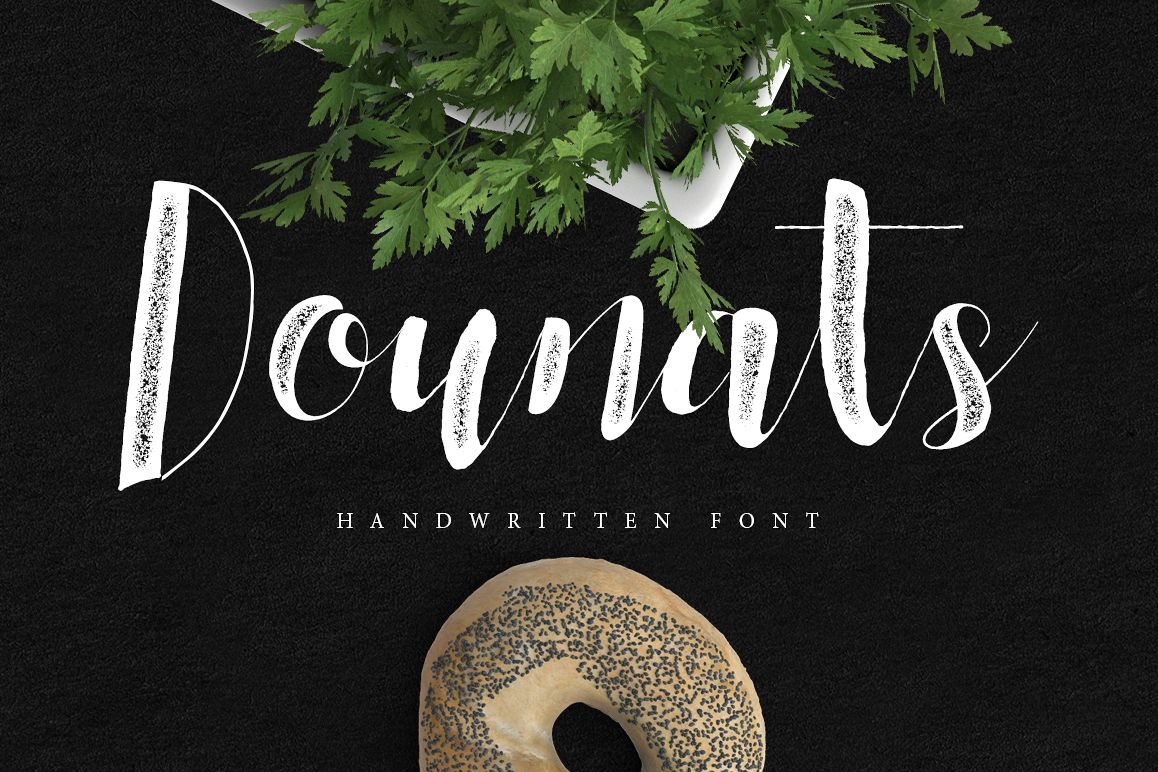
Dounats Typeface
by Maulana Creative
Give your designs an authentic handcrafted feel. "Dounats" is perfectly suited to stationery, logos and much more.Included: